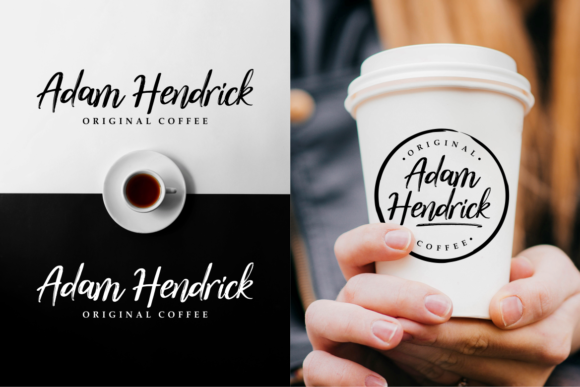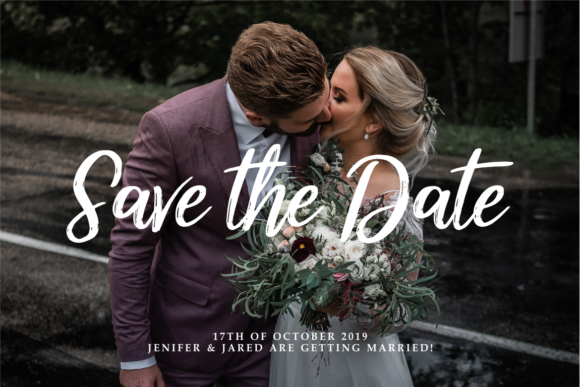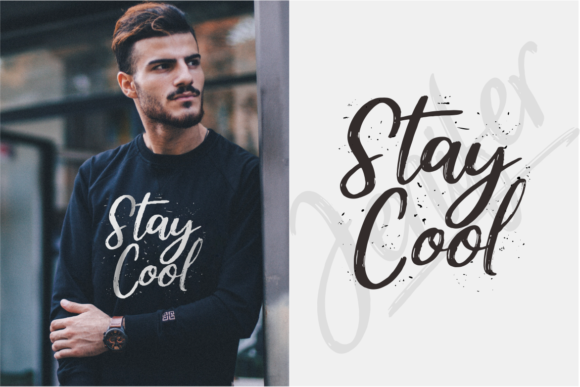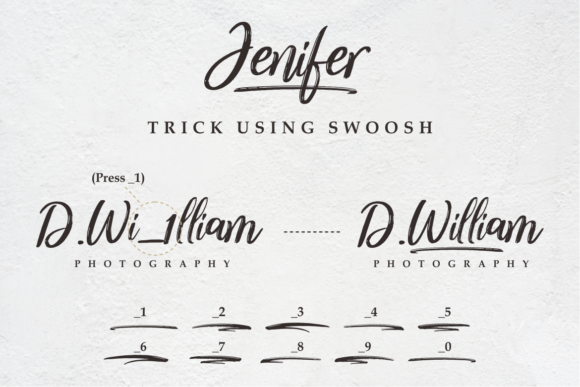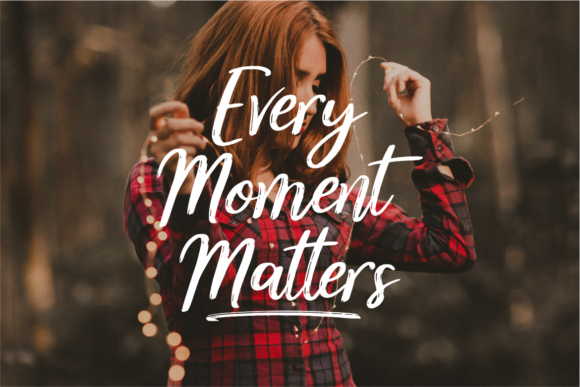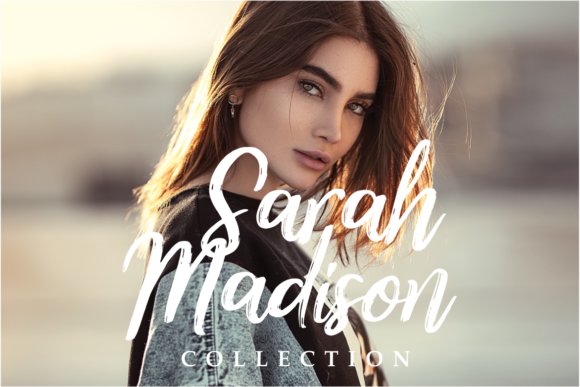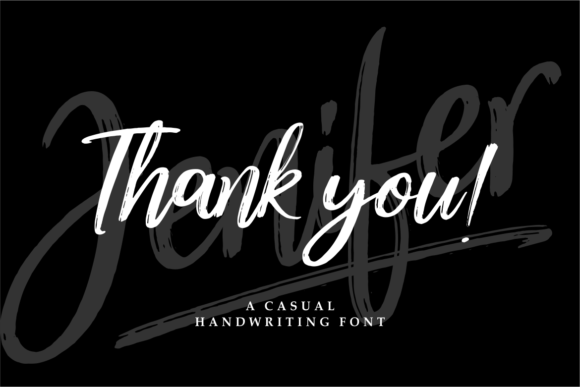
HomeScript FontsJenifer Font Script Fonts Jenifer Font FacebookXPinterestWhatsApp Jenifer Font Poster 2 Jenifer Font Poster 3 Jenifer Font Poster 4 Jenifer Font Poster 5 Jenifer Font Poster 6 Jenifer Font Poster 7 Jenifer Font Poster 8 About Jenifer Font Jenifer is a modern and light handwritten font with an organic feel. Fall in love with this one-of-a-kind font! DOWNLOAD ON CREATIVE FABRICAThis font is sold and delivered by Creative Fabrica. Font Canyon may earn a commission if you buy through this link. People also explored Spring Rhapsody Font Adhynatha Font Withdrew Font Wild Wide Font Aspire Narrow Small Caps Mantra Font Headlines Unicase Marigold Font Bachelar Font 300 0 TagsJenifer Font Previous articleBlack & Shadow FontNext articleHarley Script Font LEAVE A REPLY Cancel reply Comment: Please enter your comment! Name:* Please enter your name here Email:* You have entered an incorrect email address! Please enter your email address here Website: Save my name, email, and website in this browser for the next time I comment. Personal Use Free Pattern Personal Use Free Read more about this font Pridaem Cooper Personal Use Free Read more about this font Monogram Veg Personal Use Free Read more about this font Rennoya Personal Use Free Read more about this font BLOG Using Fonts in Digital Marketing: Tips to Strengthen Your Brand Identity In the realm of digital marketing, every visual element plays a crucial role in shaping a brand's identity, and fonts are no exception. The... Best Fonts for YouTube Videos: Make Your Thumbnails Stand Out Exploring Font Trends Where to Buy American Fonts Online in 2024